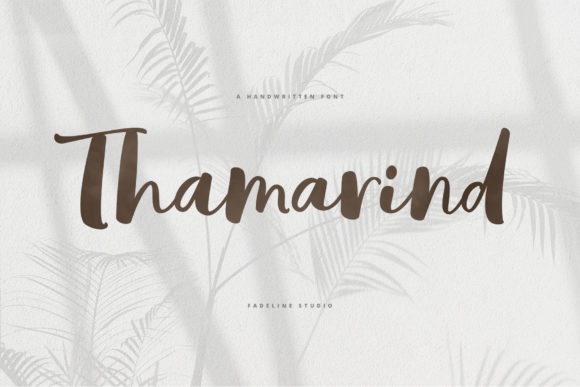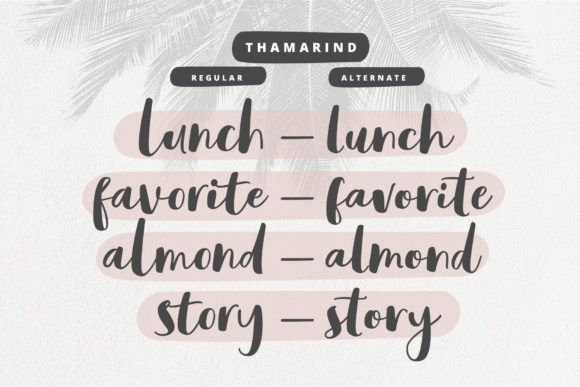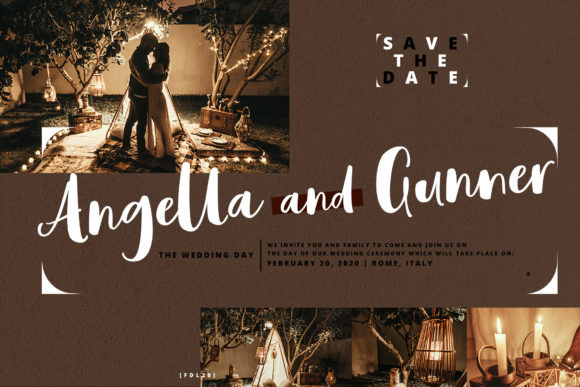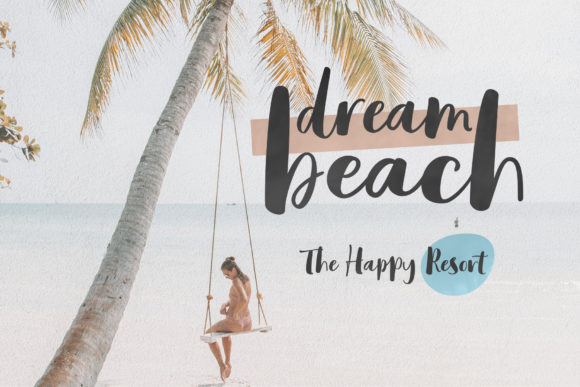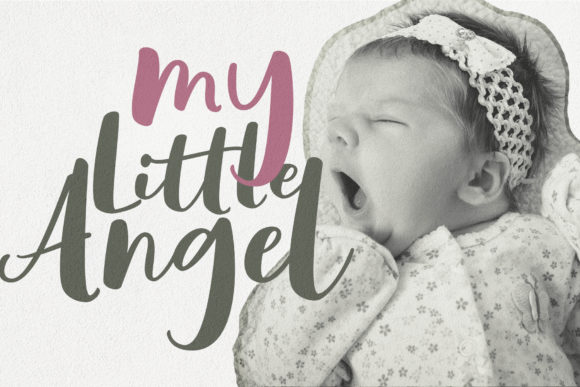
About Thamarind Font
Thamarind is a cute and casual handwritten font with an incredibly friendly feel. Whether you’re looking for fonts for Instagram or calligraphy scripts for DIY projects, Thamarind will turn any creative idea into a true piece of art!